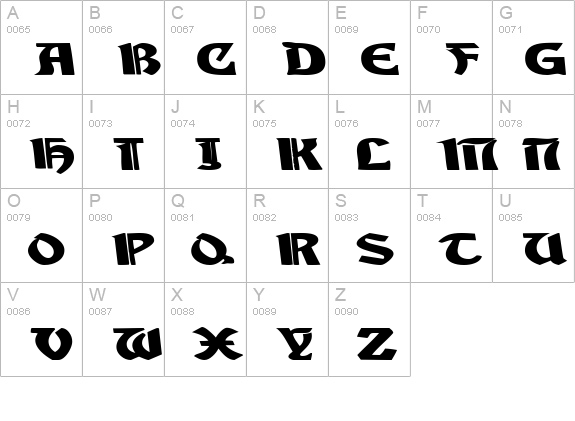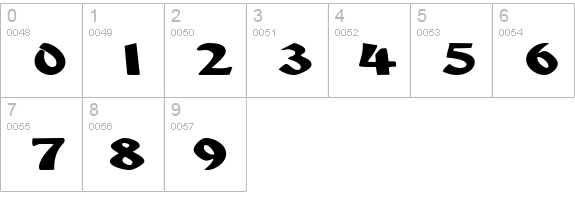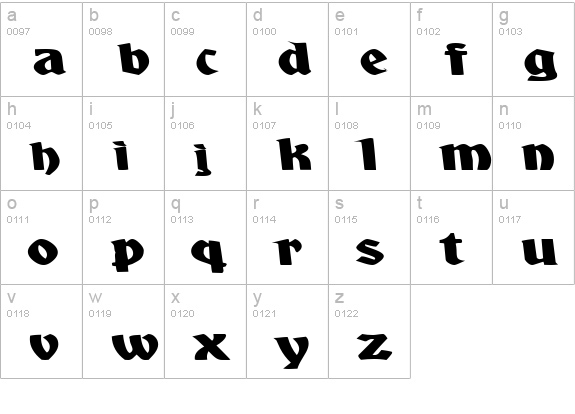
AquiEstaSSK Font Details
AquiEstaSSK font is a beautifully designed typeface that exudes elegance and sophistication. With its sleek lines and stylish curves, this font is perfect for a wide range of creative projects. Whether you're designing a logo, creating a poster, or working on a branding project, AquiEstaSSK font will add a touch of class to your work. Best of all, AquiEstaSSK font is completely free to download at FontsMarket.com. This means you can access this stunning font without any cost, making it a fantastic choice for designers on a budget. Don't miss out on the opportunity to enhance your projects with the timeless beauty of AquiEstaSSK font. Download it today and take your designs to the next level.